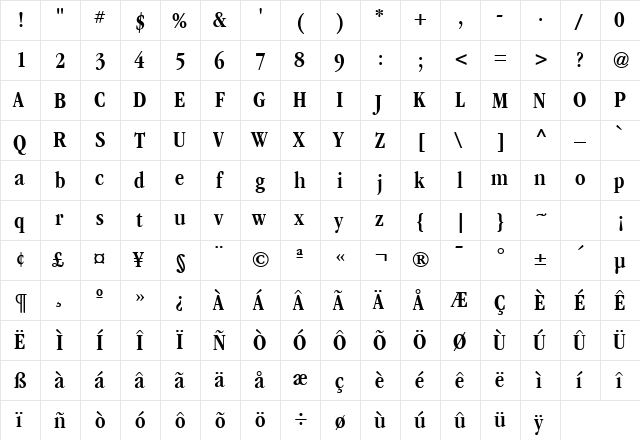
GarryMondrianCond5 SBldSH
Design Context for GarryMondrianCond5 Typeface
GarryMondrianCond5 is a composed and adaptable typeface that performs quietly and consistently across a wide range of design contexts. The condensed width makes it efficient for tight spaces without sacrificing legibility.
Pro Tip: Use GarryMondrianCond5 in both headline and body roles to test its range before committing to a single application.